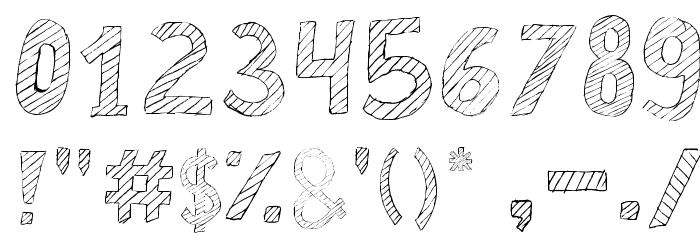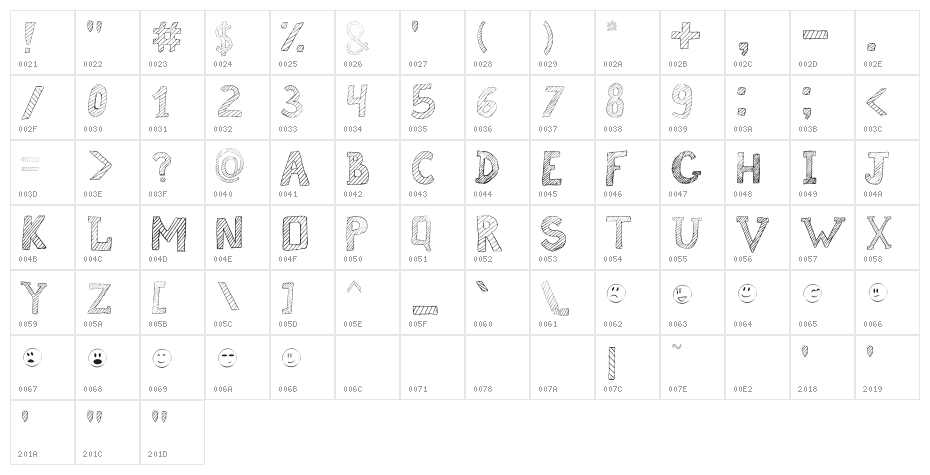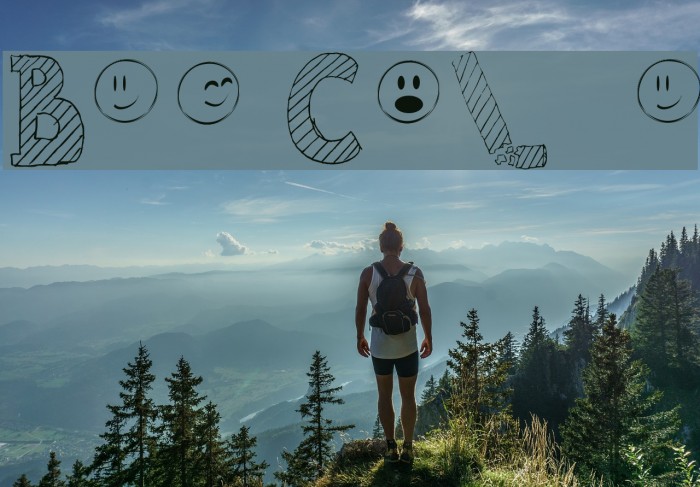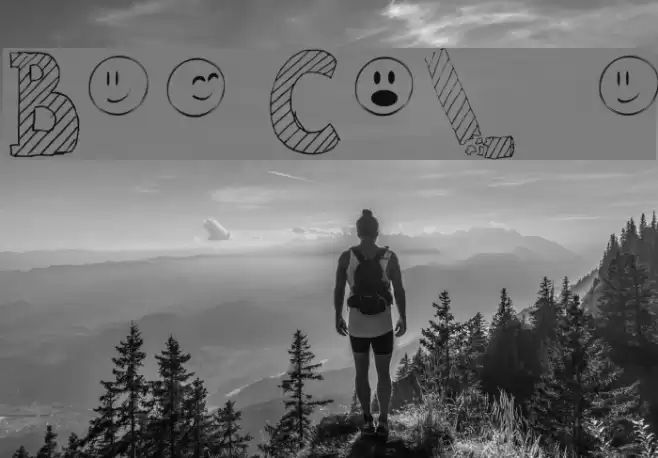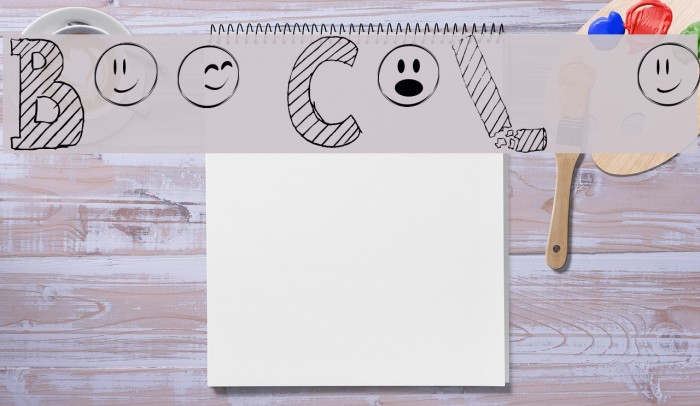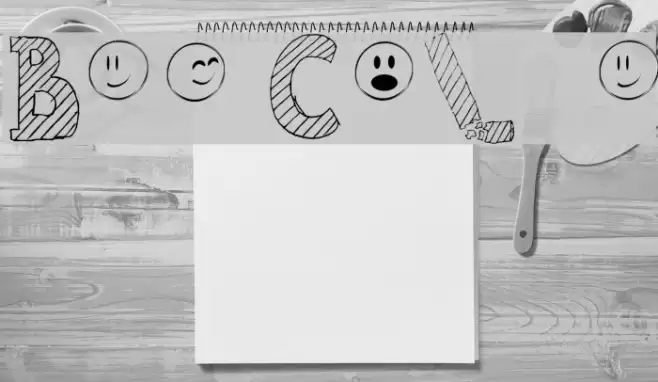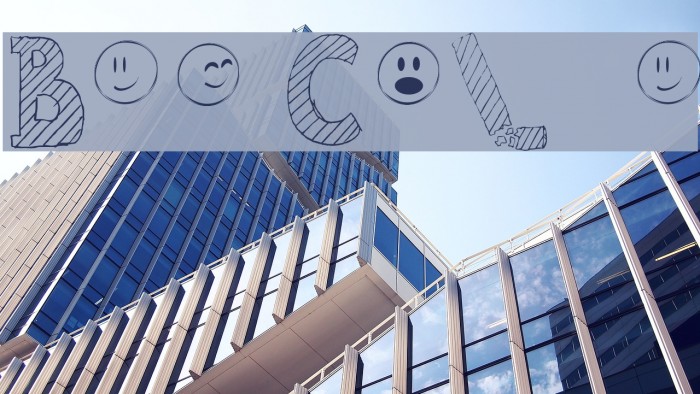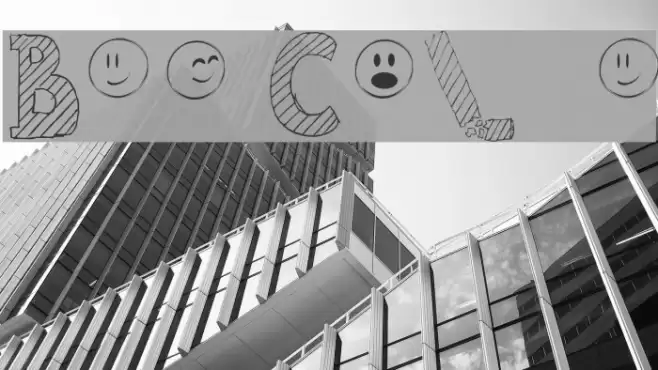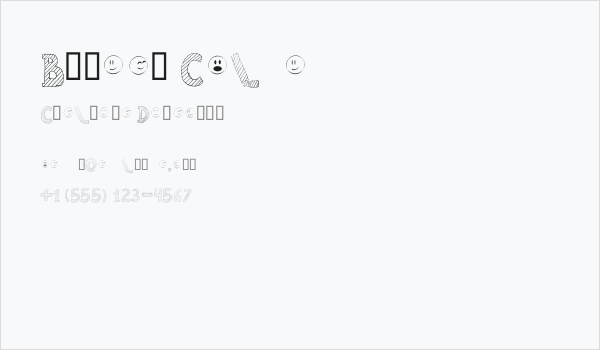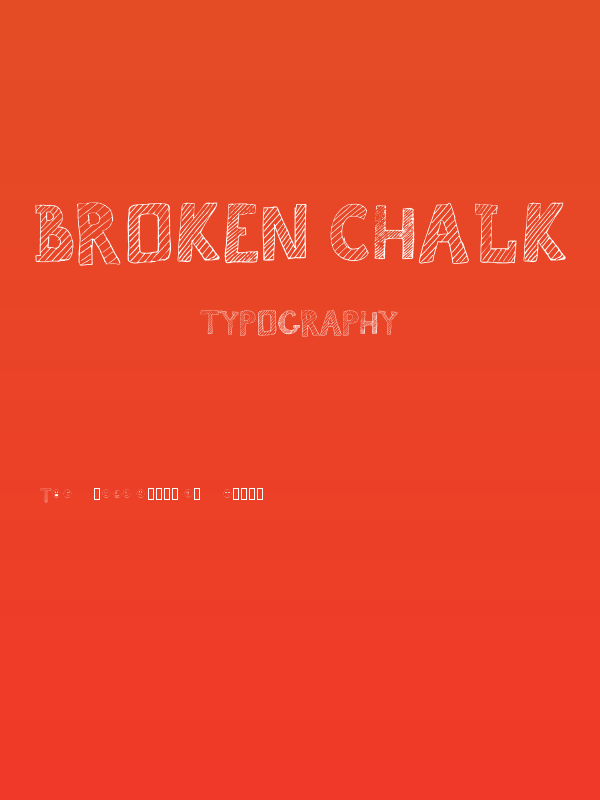
Broken Chalk Font
Broken Chalk Description
This font features a playful, hand-drawn style reminiscent of chalk writing on a blackboard. Each character is filled with diagonal lines, giving it a textured, sketch-like appearance. The uppercase letters are bold and prominent, while the numbers and special characters maintain the same playful aesthetic. The font includes a variety of emoticons, adding a whimsical touch. Its unique style makes it stand out, perfect for creative and informal projects. The characters are evenly spaced, ensuring readability while maintaining the casual, artistic vibe.
| Overall Style | Playful, Artistic |
| Use Case | Headlines, Posters, Creative Branding |
| Proposed Projects | Ideal for educational materials, children's books, playful branding, and creative posters. |